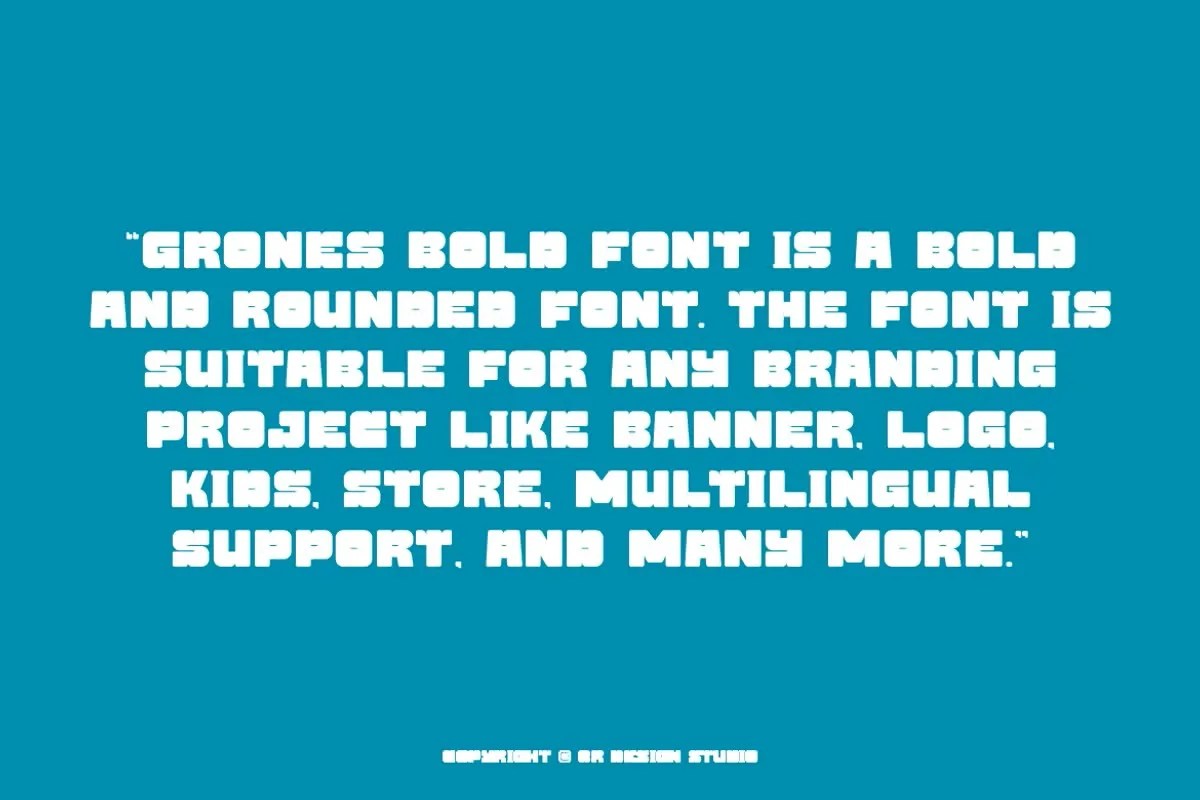
Grones Bold by QR Design Studio. This is an exceptionally bold sans serif font that offers incredible strength and clarity in one single package. The author designed Grones Bold specifically for grabbing attention. Its thick, confident letterforms immediately command the viewer’s focus. This font is the perfect tool for any design that needs to feel strong, direct, and completely unambiguous.
This font is a true workhorse for any high-impact project. Specifically, it excels as a headline font for websites, magazines, and presentations. It draws the reader in immediately with its sheer presence. Furthermore, this bold sans serif font is perfect for creating memorable logos. Its clean strength suits brands in the tech, sports, or fashion industries that want to project confidence. Use it for posters and social media graphics that you want people to notice and remember long after they scroll past.
• Strong and bold sans serif style
• Features thick, clean letterforms for impact
• Ideal for headlines, logos, and posters
• Offers excellent readability for a bold weight
Grones Bold